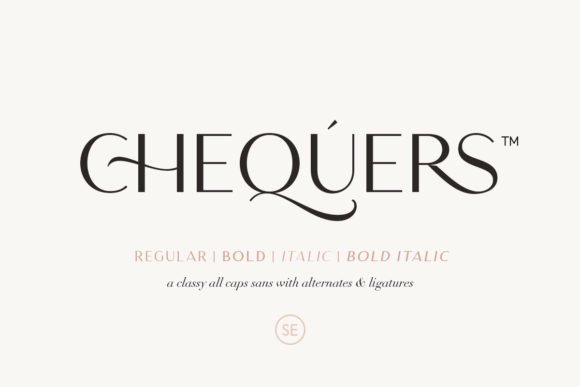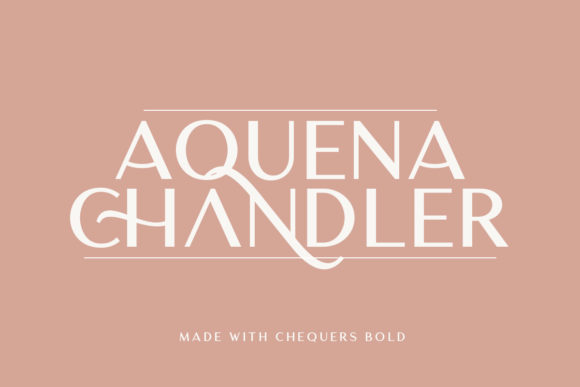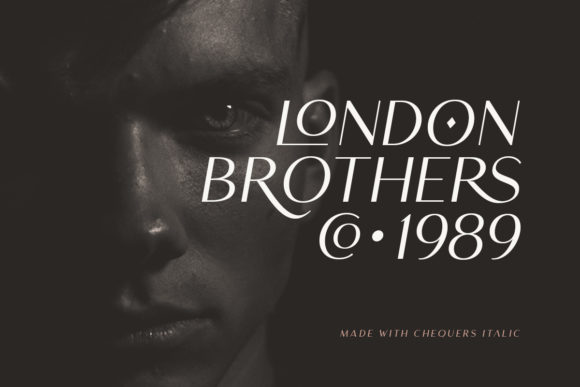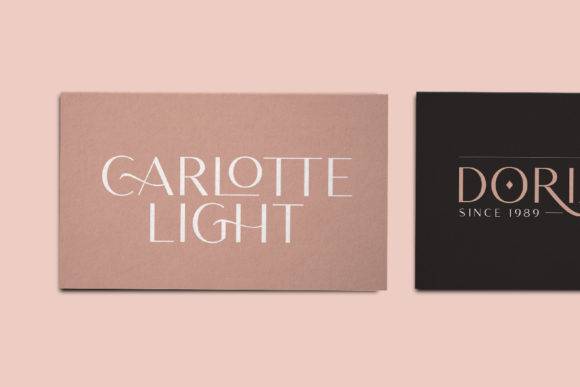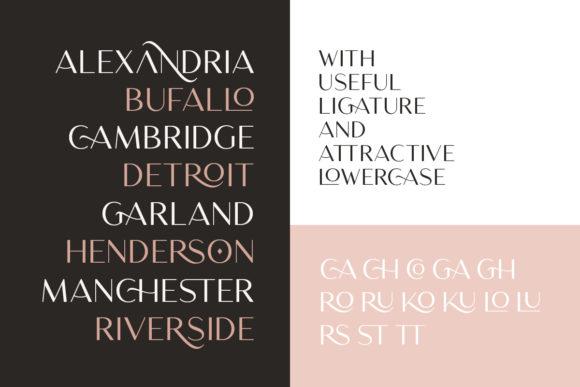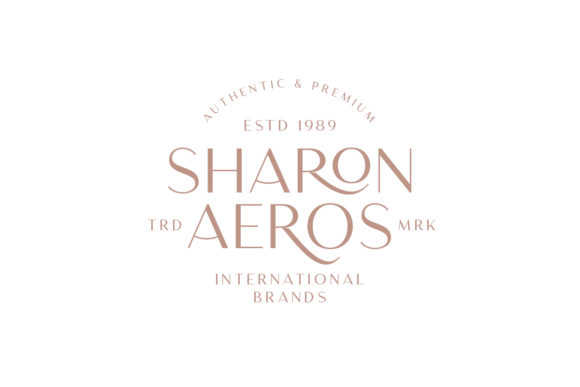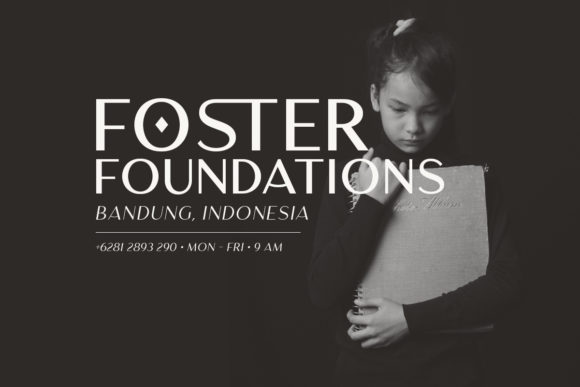
Designing a Masterpiece: The Power of the Chequers Font
As a designer, you know that sometimes the smallest details can make all the difference between a mediocre design and a masterpiece. You’re sitting at your desk, staring at a blank canvas, and suddenly, a burst of creativity hits you. You envision a stunning logo or presentation that will leave your audience in awe. But, you know that the key to making it truly special lies in the typography.
That’s where the Chequers Font comes in – a classic and modern sans serif font that’s packed with essential ligatures. This font is designed to elevate your designs to the next level, making them stand out in a crowded market. Whether you’re a seasoned pro or just starting out, the Chequers Font is a valuable tool in your design arsenal, and we’re excited to dive deeper into its features and benefits.
Chequers Font Key Features
- Font Family: Chequers is a serif font designed by Matthew Carter in 1984.
- Size: The font family includes various weights and styles, ranging from Light to Black, with corresponding sizes for optimal readability.
- Resolution: Designed for use at high resolutions, making it suitable for print and digital applications.
- Unique Characteristics: Chequers is known for its elegant, classic feel, with subtle flair on the terminals of the strokes, giving it a distinctive look.
- Language Support: Offers comprehensive support for Latin-based languages, making it a versatile choice for various publishing and design projects.
Design Review: Chequers Font
As a designer, I was excited to dive into the world of Chequers Font, a typeface that promises to bring a touch of sophistication to any design project. ✨ One thing that really works well is the font’s unique blend of modern and classic elements. The subtle nuances in letterform design create a sense of depth and visual interest that’s hard to find in more straightforward sans-serif fonts.
Another aspect that I appreciate is the font’s versatility. Chequers Font seems to work well in a variety of contexts, from body text to headlines, and even as a decorative element. The font’s OpenType features allow for some great ligature and swash combinations that can add an extra layer of personality to your designs.
- ⚠️ Limited language support: While Chequers Font covers a decent range of languages, it falls short in terms of comprehensive support for languages like Arabic, Chinese, and Japanese.
- ⚠️ Limited bold and italic weights: While the font’s regular weight is strong, the bold and italic weights feel a bit lacking in terms of weight and contrast.
Overall, I think Chequers Font is a solid addition to any designer’s toolkit. While it may not be perfect, its unique design and versatility make it a great choice for a wide range of projects. With some additional language support and weight options, I’d be even more excited to use this font in my designs.
The Chequers Font is ideal for:
- Designing vintage-inspired graphics and illustrations.
- Creating rustic or distressed text effects.
- Adding a unique touch to invitations, posters, and flyers.
For optimal results, use the Chequers Font in combination with other vintage-inspired
Q: Is Chequers a variable font?
No, Chequers is not a variable font. It is a static font with a fixed set of weights and styles. However, it does offer a range of weights and styles to provide flexibility in design applications.